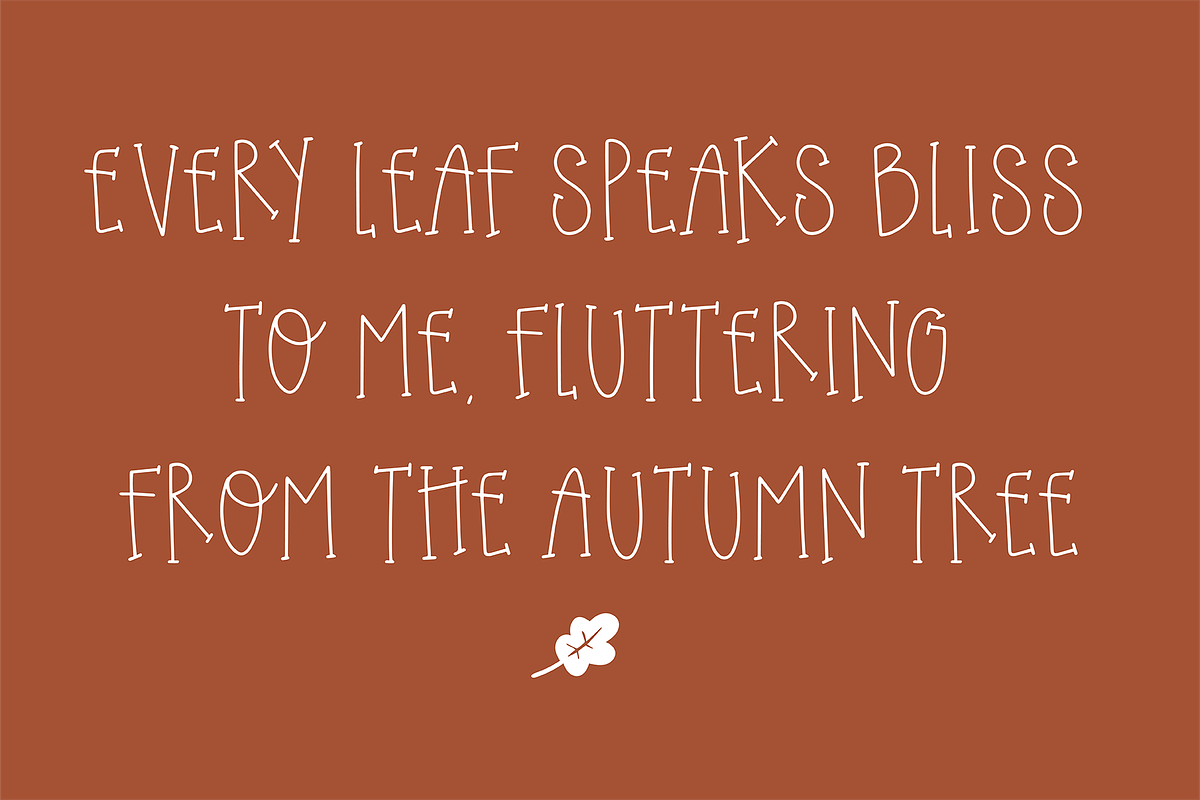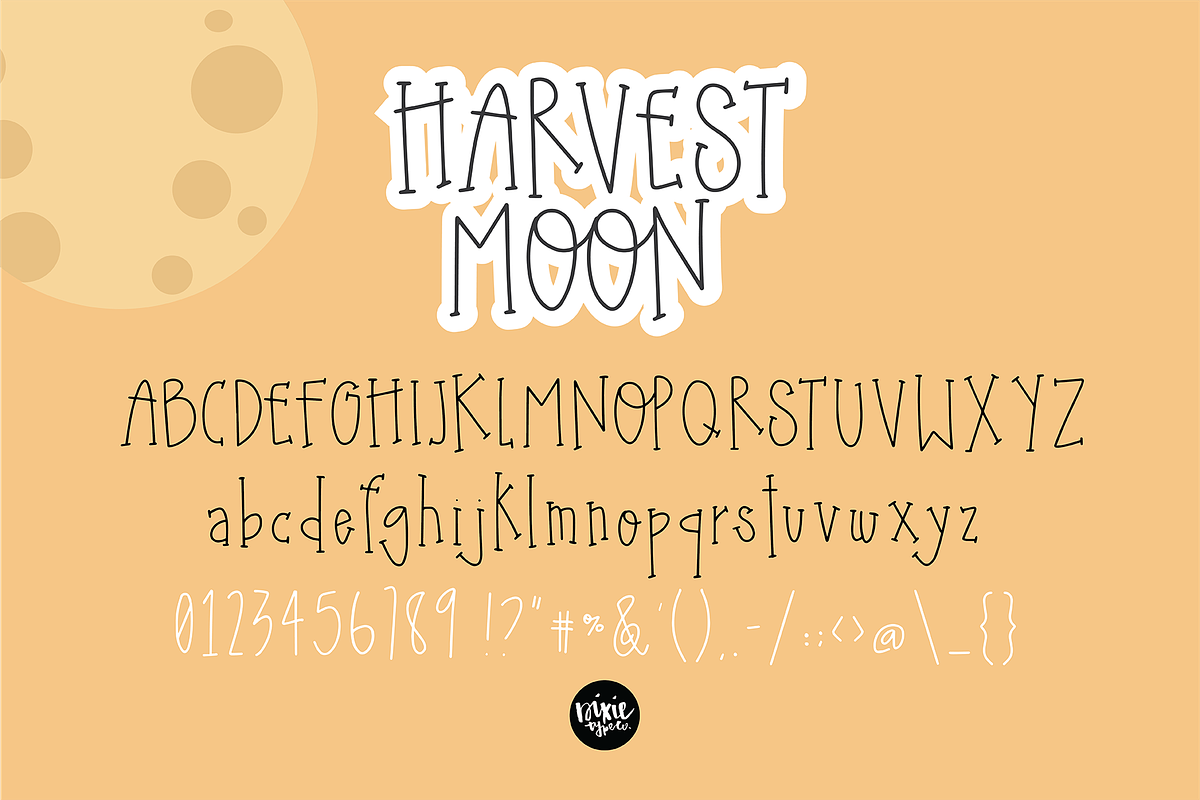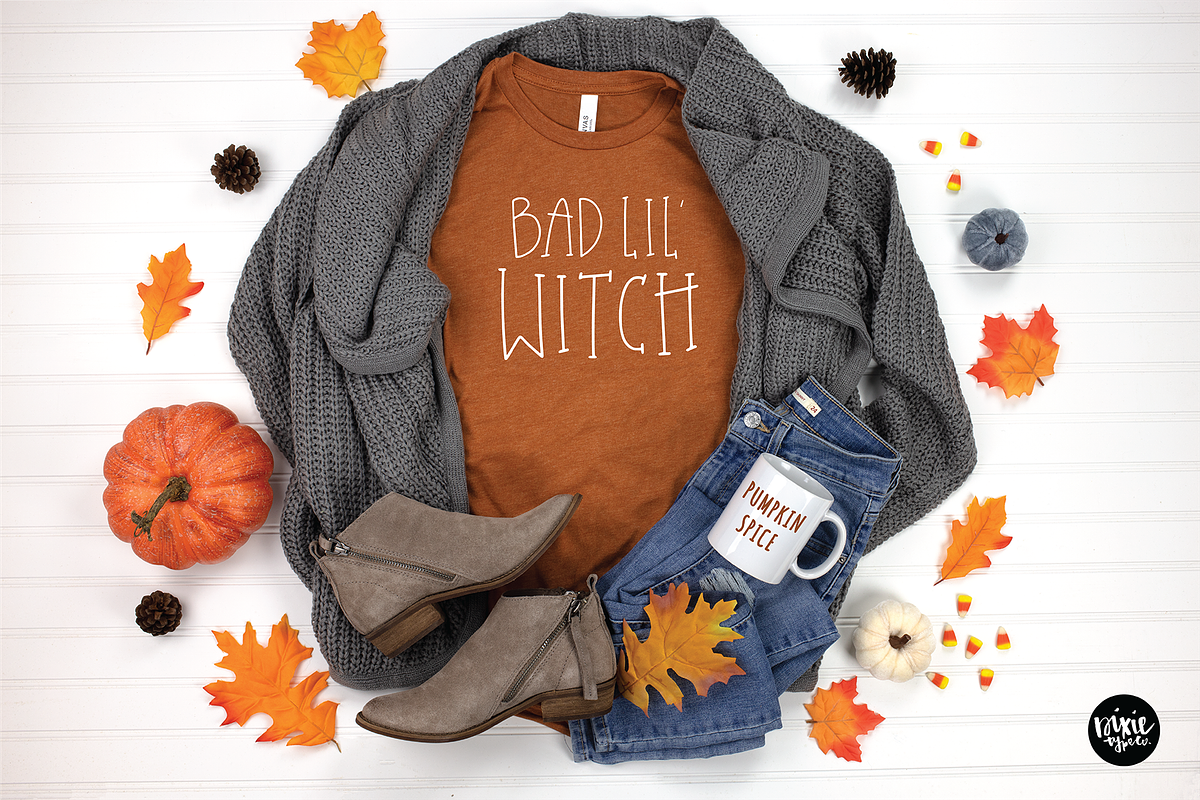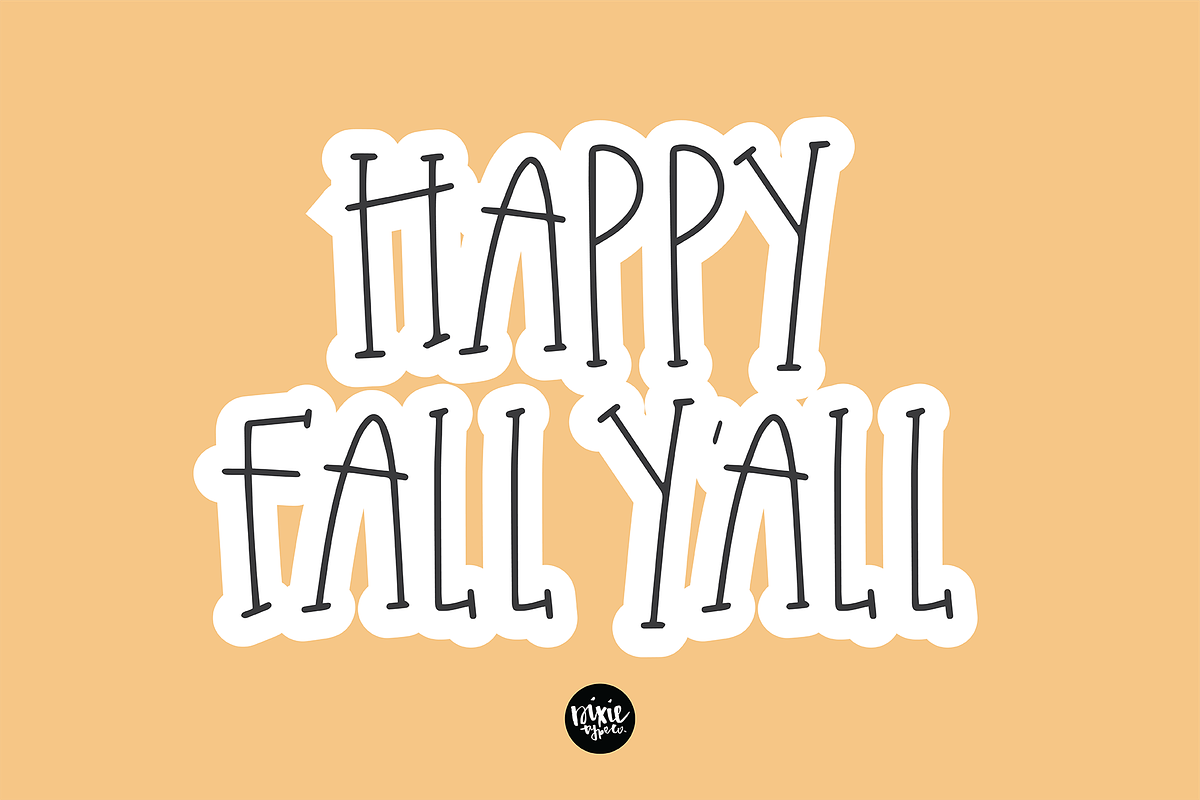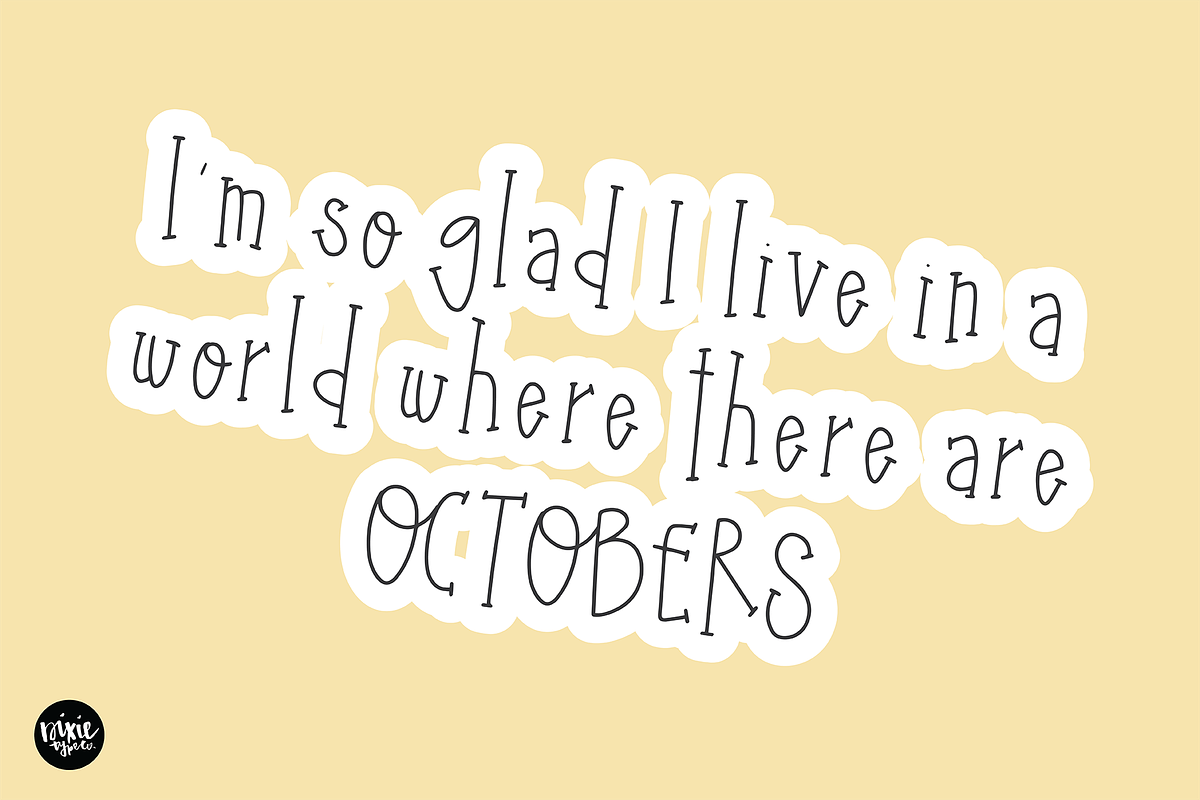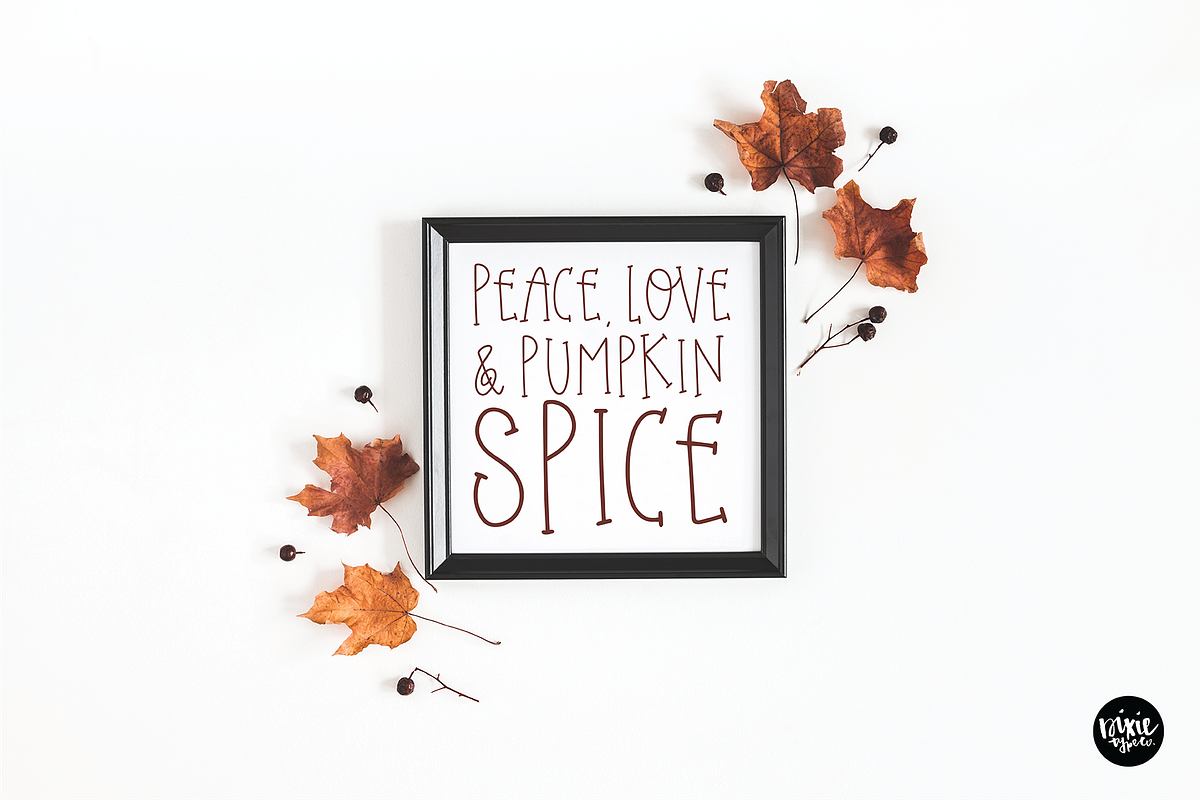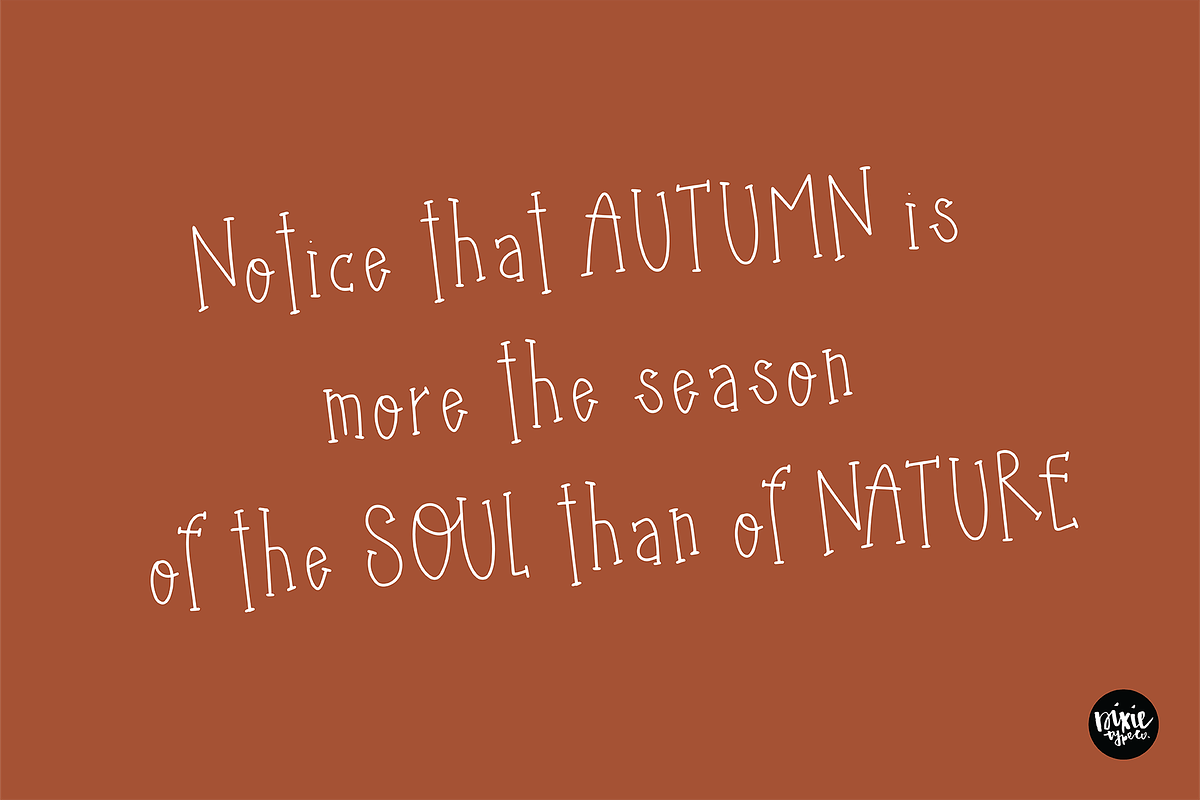
HARVEST MOON a Thin Serif Font
"Harvest Moon" is a thin handwritten serif installable font. This font will be titled "DTC Harvest Moon" in your library.
{ A typographic font hand-lettered with love by Dixie Type Co. }
Harvest Moon is a tall, rustic, farmhouse serif font that will compliment any script font. This works great in projects that use lots of text. Use it on craft projects, party invitations, home decor, signs, etc.!